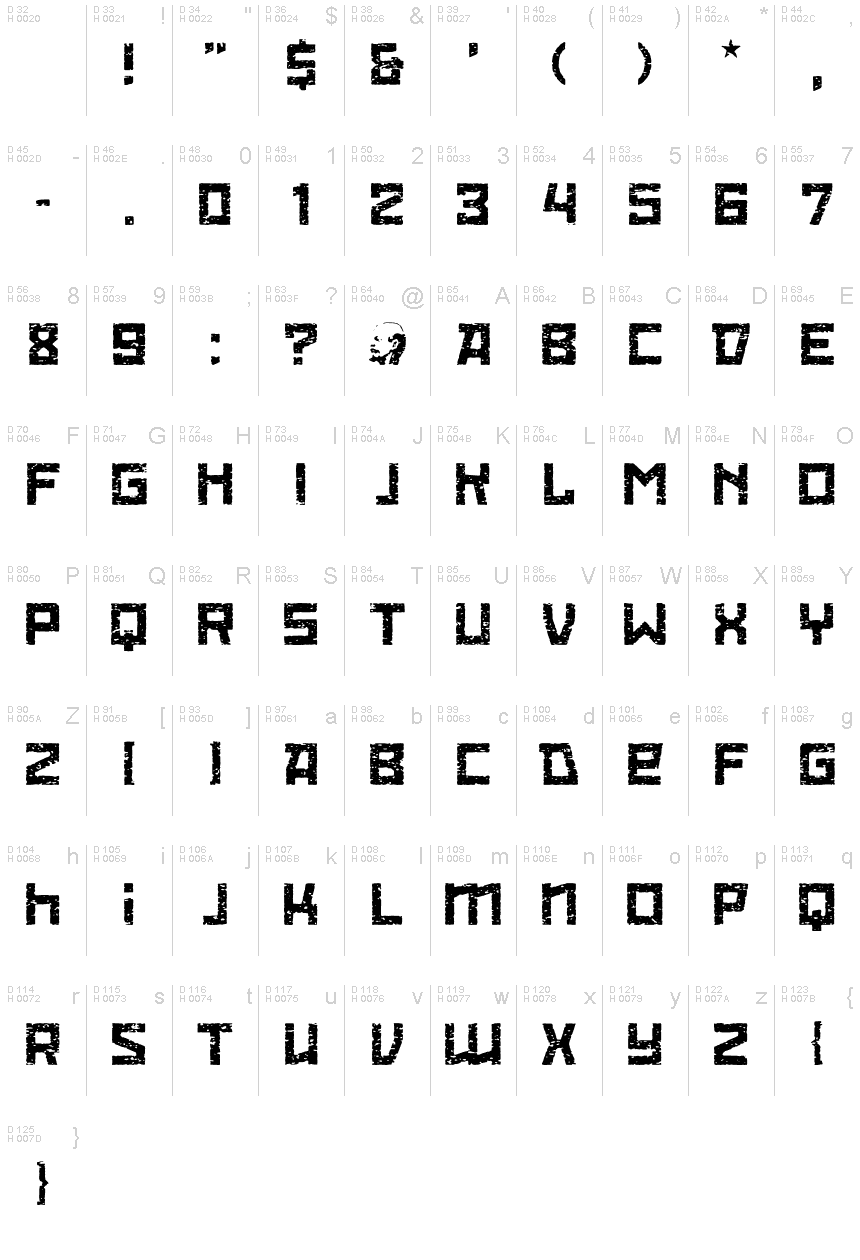
Red October Eroded
Eroded version of my famous Red October typeface. Note to admins: if you decide it is more logical, you can merge this one with the normal Red October.